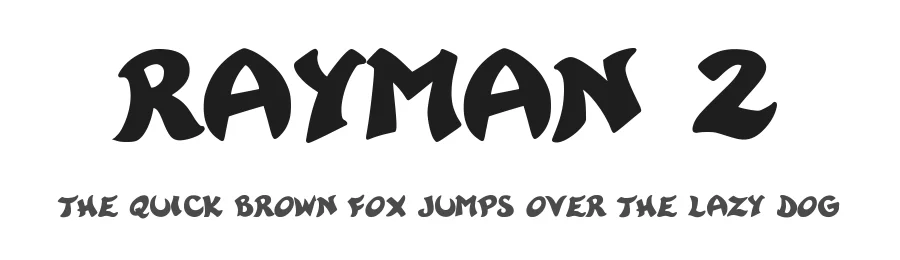
About Rayman Adventures Font
Here is a complete version of the font everyone is looking for! The Rayman 2 font was one of the greatest of the series, and nobody has ever found a decent copy! So I decided to devote my time to create a perfectly designed replica of the original!
Rayman Adventures Font is a decorative font that shines as a display or heading face. Pair it with a clean sans-serif or serif font for body text β the contrast creates a clear hierarchy while the two styles stay balanced and easy to read.